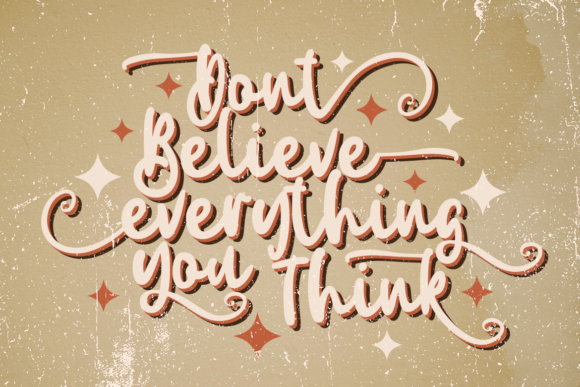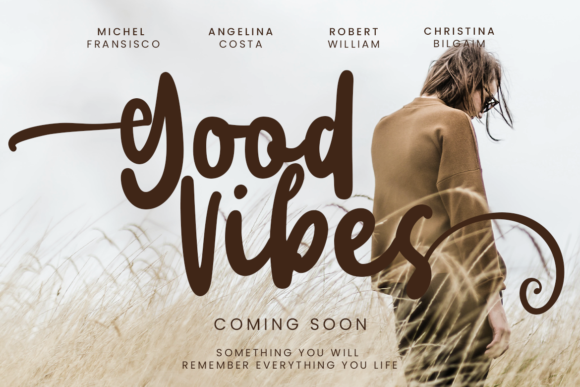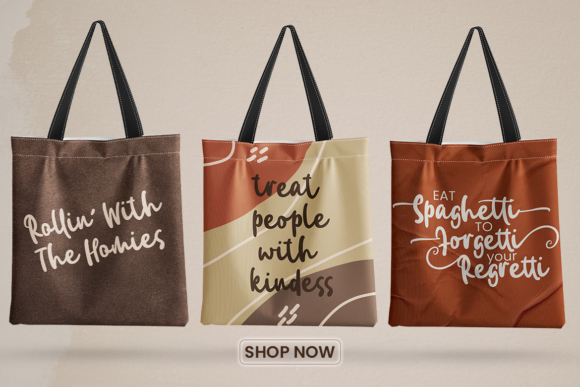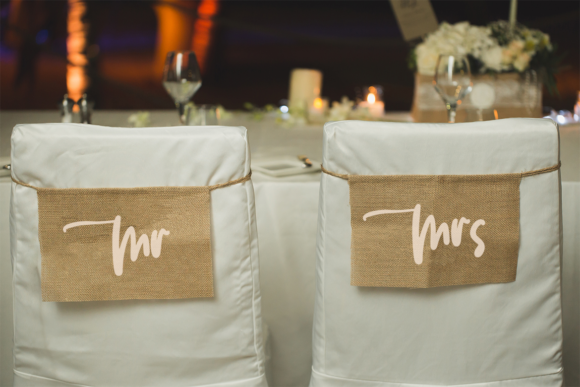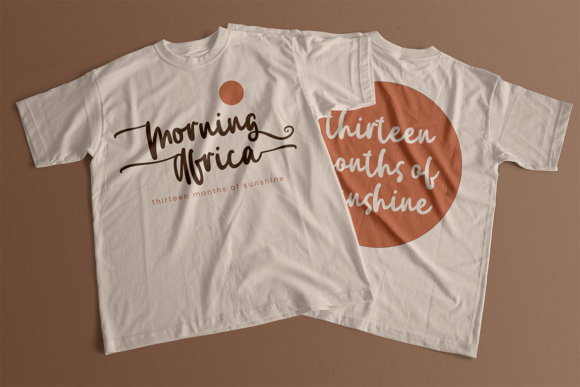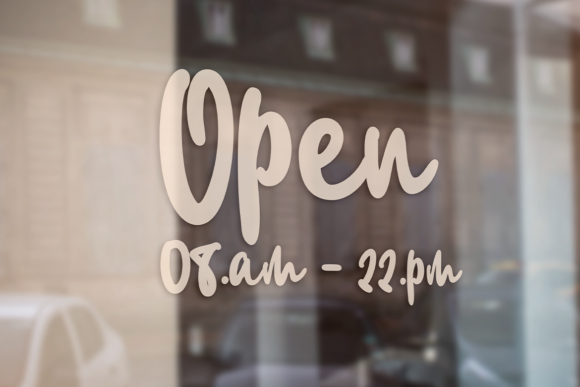
Introducing Amelinda Script Font: Elevate Your Designs with Elegance
Are you a designer or crafter looking for a font that exudes sophistication and vintage charm? Look no further than Amelinda Script Font. This stunning script font is designed to add a touch of elegance to your fashion branding, editorial designs, and craft projects. With its smooth curves and beautiful balance, Amelinda Script Font is the perfect choice for anyone seeking to create visually appealing and professional-looking designs.
What Makes Amelinda Script Font Special?
Amelinda Script Font is a well-crafted, vintage-styled script font that boasts smooth curves and a beautiful balance. Its unique design makes it perfect for a variety of applications, including:
- Fashion branding: Create stunning logos, business cards, and packaging that reflect your brand’s personality and style.
- Editorial designs: Add a touch of elegance to your magazine layouts, blog posts, and articles with Amelinda Script Font.
- Craft projects: Use Amelinda Script Font to create beautiful handmade cards, invitations, and DIY projects that showcase your creativity.
One of the standout features of Amelinda Script Font is its PUA (Private Use Area) encoding. This means that you can access all of the glyphs and swashes with ease, giving you complete creative control over your designs. With PUA encoding, you can:
- Easily access alternative characters and swashes to add variety to your designs.
- Use the font’s built-in ligatures and ornaments to create beautiful, cohesive designs.
- Customize your designs with ease, using the font’s extensive range of glyphs and swashes.
Why Choose Amelinda Script Font?
With so many fonts available, why choose Amelinda Script Font? Here are just a few reasons why designers and crafters love this beautiful script font:
- Unique and elegant design: Amelinda Script Font’s vintage charm and smooth curves make it a standout choice for any design project.
- Highly versatile: Use Amelinda Script Font for a wide range of applications, from fashion branding to editorial designs and craft projects.
- Easy to use: With PUA encoding, accessing the font’s glyphs and swashes is simple and intuitive.
- Professional results: Create stunning, professional-looking designs with Amelinda Script Font.
Tips for Using Amelinda Script Font
To get the most out of Amelinda Script Font, here are a few tips to keep in mind:
- Experiment with different sizes and styles: Amelinda Script Font looks great in a variety of sizes and styles, so don’t be afraid to experiment and find the perfect look for your design.
- Pair with complementary fonts: Combine Amelinda Script Font with complementary fonts to create visually appealing and cohesive designs.
- Use the font’s built-in features: Take advantage of Amelinda Script Font’s PUA encoding and built-in ligatures and ornaments to add depth and interest to your designs.
Amelinda Script Font is a beautiful, elegant, and highly versatile script font that’s perfect for designers and crafters looking to add a touch of sophistication to their designs. With its smooth curves, vintage charm, and PUA encoding, Amelinda Script Font is the perfect choice for fashion branding, editorial designs, and craft projects. So why wait? Download Amelinda Script Font today and start creating stunning, professional-looking designs that showcase your creativity and style.